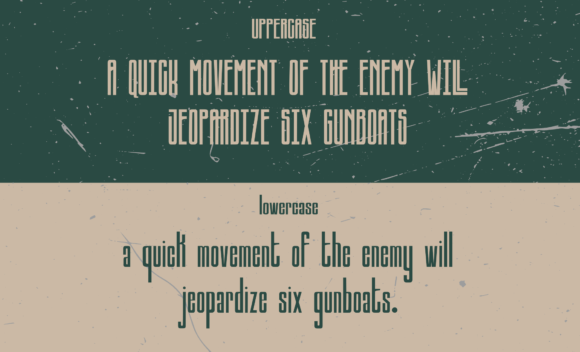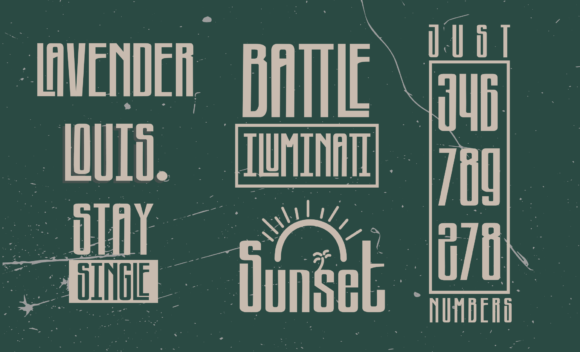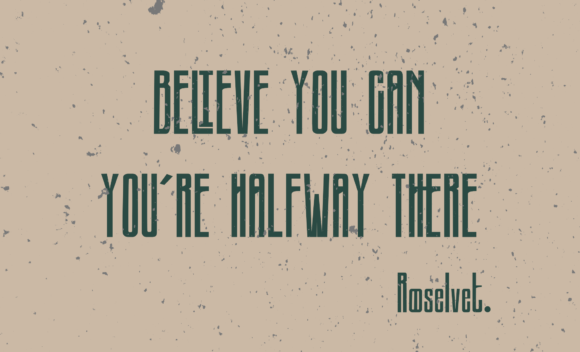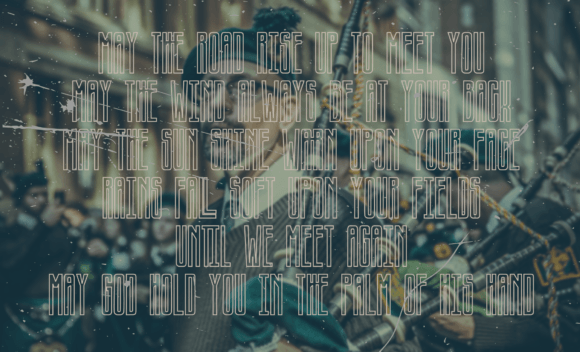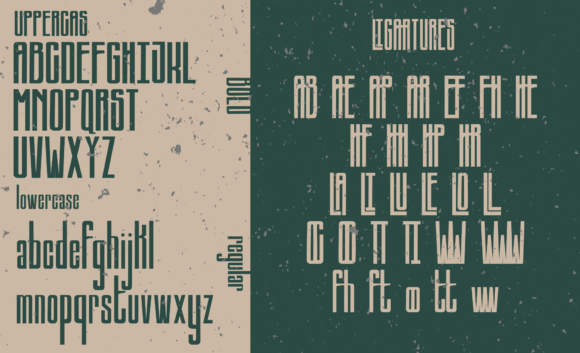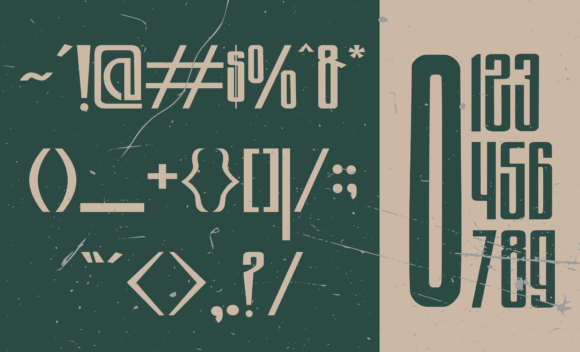
Introduction to Quartilla Font
Bring the best of retro to your designs with Quartilla.
This font draws inspiration from the ’70s-’80s style and has a clean, condensed look With unique glyphs and a modern touch, Quartilla is perfect for logotypes, typography, marketing materials, and craft projects.
Key Features of Quartilla Font